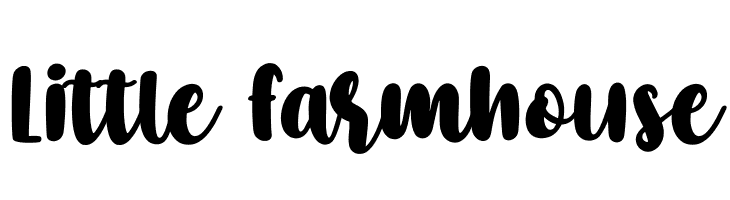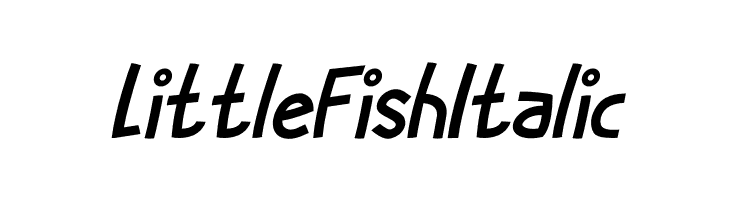
A bold, handwritten font with a playful and organic style.
A bold, playful handwritten font with flowing strokes and whimsical curves.
A playful, hand-drawn font with a whimsical and informal style.
A playful, italicized font with a handwritten style and bold strokes.
A playful, hand-drawn font with a whimsical and informal style.
A playful, handwritten font with bold, rounded strokes.
A playful, hand-drawn font with a whimsical and casual style.
A playful script font with elegant, flowing curves and a handwritten style.
A playful, hand-drawn script font with smooth curves and loops.
A bold, retro font with playful, rounded strokes and a vintage vibe.